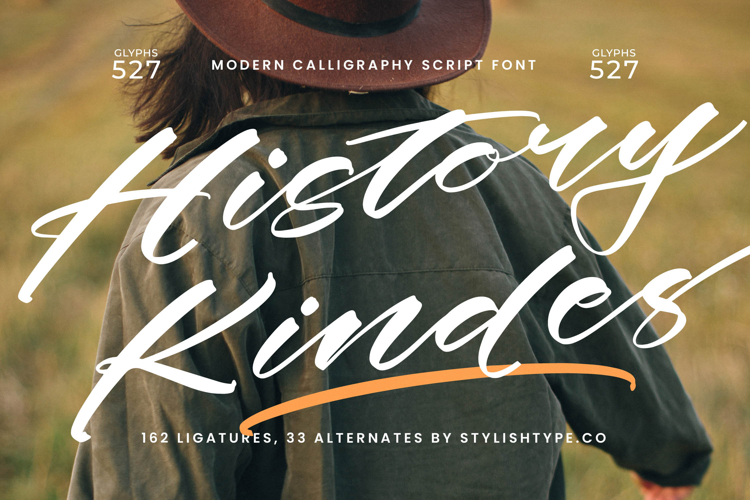
History Kindes - Modern Calligraphy Script Font
Unlock immediate visual impact with Font History Kindes - Modern Calligraphy Script Font Script, a truly captivating typeface designed to elevate any project. This exquisite script font embodies a perfect blend of modern elegance and authentic handcrafted appeal, featuring fluid strokes and a dynamic, high-contrast aesthetic that commands attention. Its distinctive style brings an unparalleled level of sophistication and expressive power to your creative endeavors, making every word a statement.
Experience unparalleled design versatility with this meticulously crafted script. Font History Kindes - Modern Calligraphy Script Font Script offers a wealth of design possibilities through its thoughtful construction, ensuring a seamless and natural flow that mimics genuine hand-lettering. Its inherent grace makes it an exceptional choice for conveying authenticity and elegance, transforming ordinary text into a work of art.